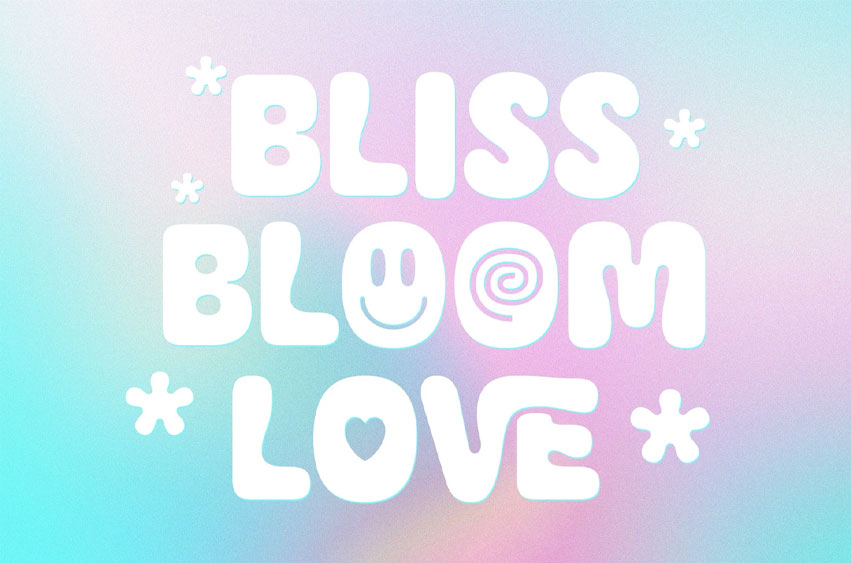
Bubble Bliss Bloom Font
Bubble Bliss Bloom Font that encapsulates the essence of playfulness and bubbly charm. This chunky cute rounded typeface is meticulously crafted to bring a touch of whimsy to your creative endeavors.
Bliss Bloom stands out with its unique blend of chunkiness and cuteness. The rounded edges create a playful and friendly vibe, making it ideal for a variety of applications.
This font holds the superior advantage of being both impactful and dynamic. Its bold weight ensures visibility and leaves a lasting impression, making it perfect for logos, branding, and album covers.
Designed for versatility, Bliss Bloom is not limited to just one medium. Whether you’re working on a website, fish fluid packaging, 3D project, or fashion poster, this font seamlessly integrates into your design, adding a touch of fantasy and love. Its single variant ensures simplicity and ease of use.
The pastel color palette of Bliss Bloom evokes a child-friendly and cute aesthetic, making it an excellent choice for kid-centric projects. The font radiates love and charm, aligning perfectly with a feminine and pastel-themed style.
Bliss Bloom goes beyond being just a font; it’s an expressive tool. The fun and funny elements embedded in its design make it suitable for creating visually appealing logotypes, music band logos, and eye-catching gen z posters.
In summary, Bliss Bloom is your go-to choice for a unique, chunky, and feminine font. Its versatility across various design projects, coupled with its dynamic and expressive features, ensures that your creations stand out with a touch of love and playfulness. Download Bliss Bloom now and infuse your designs with the magic of bubbly charm!